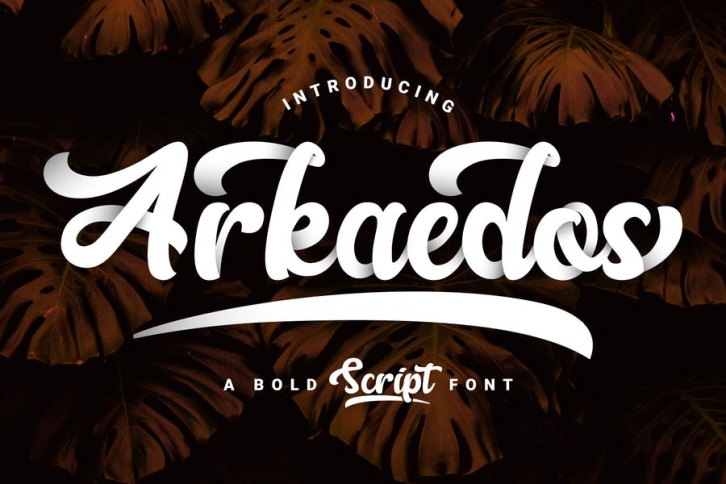
Here is a script font with a bold and cool style. Can be applied in various media such as logo, food packaging, brand names, posters, broadcasts or you tube thumbnails, even album covers!
No, you can also execute and explore easily for your project because it contains lots of very cool alternative characters! see details of some preview above for reference.